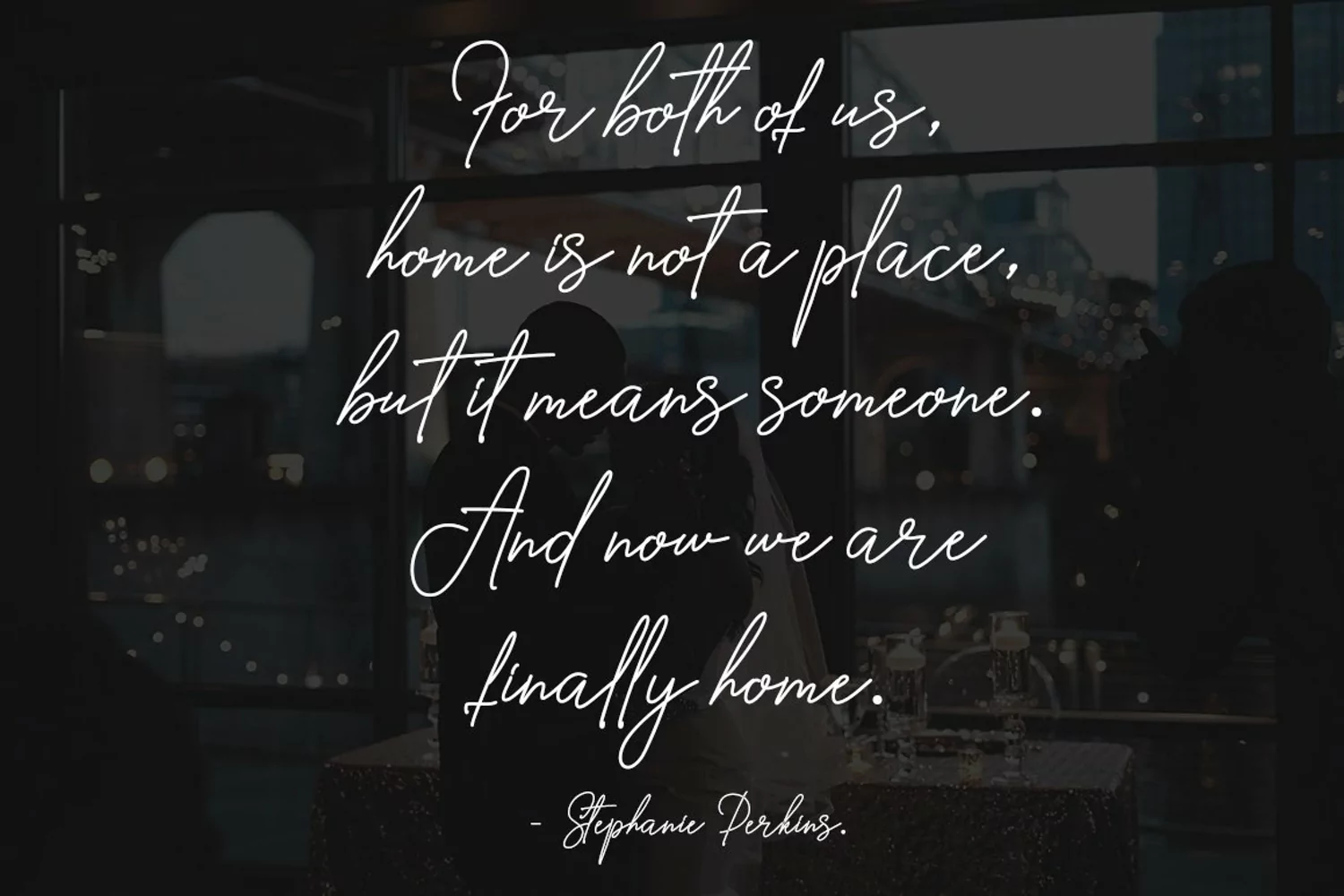
Kithen Mellogia | Signature Font
Kithen Mellogia is a natural handwritten font produced by IM Studio. You'll get a full set of lowercase and uppercase letters, numbers and punctuation, multilingual symbols, alternative lowercase letters, and a binder pack. This font is suitable for branding, signatures, wedding invitations, promotions, product packaging and other needs. This font is natural, simple, yet authentic and very stylish.
fastener
Uppercase and lowercase
Numbering, Symbols and Punctuation
Multilingual Support